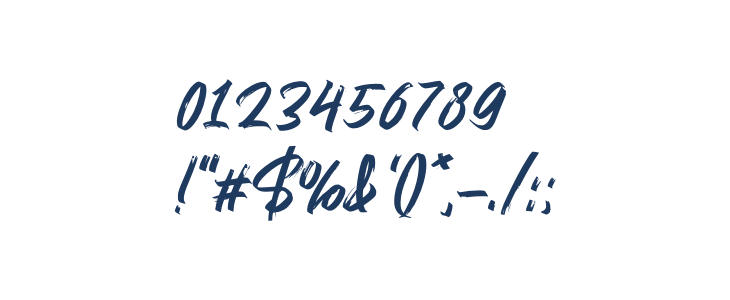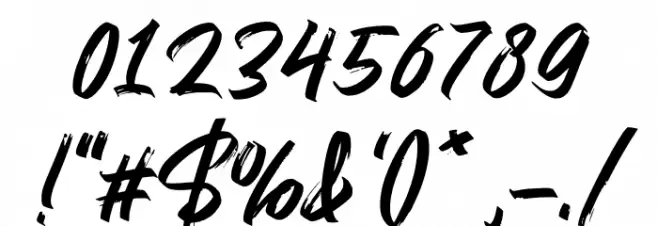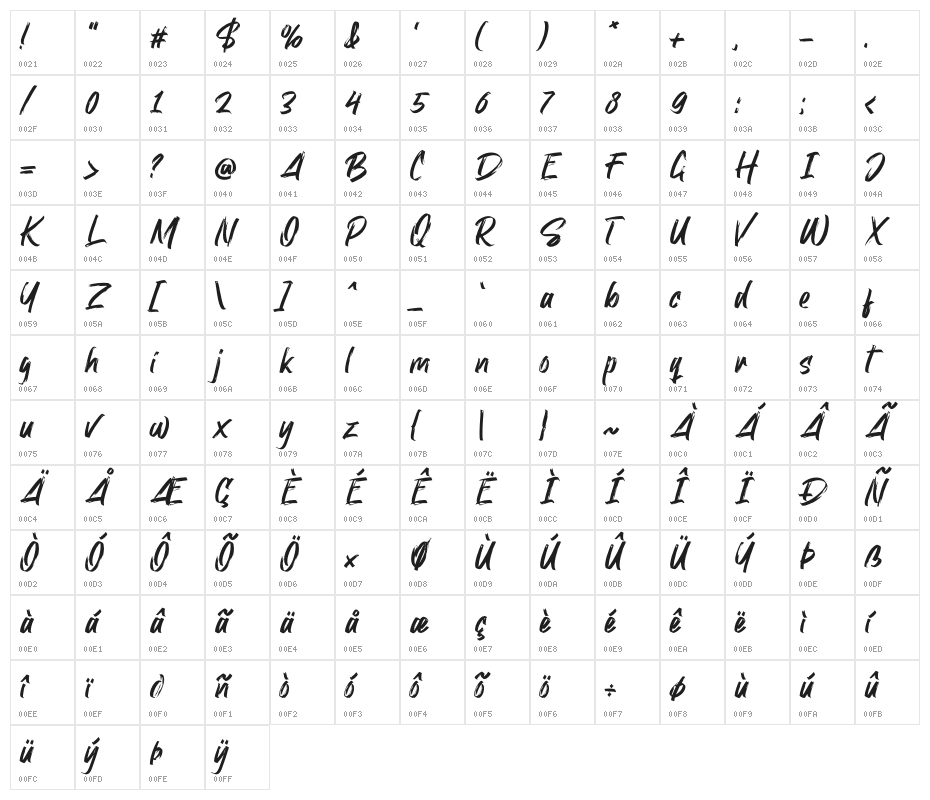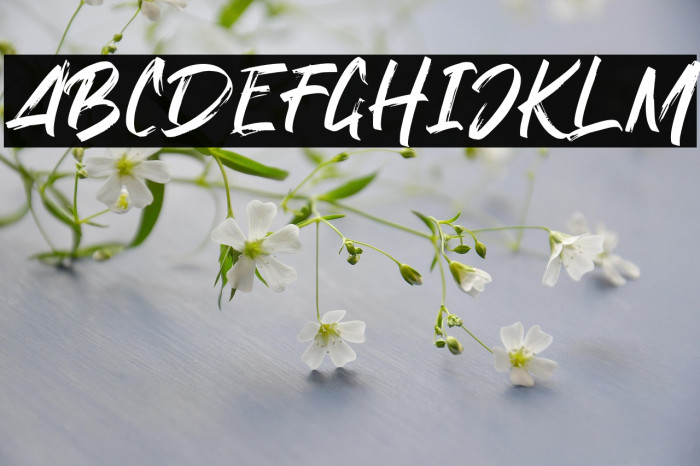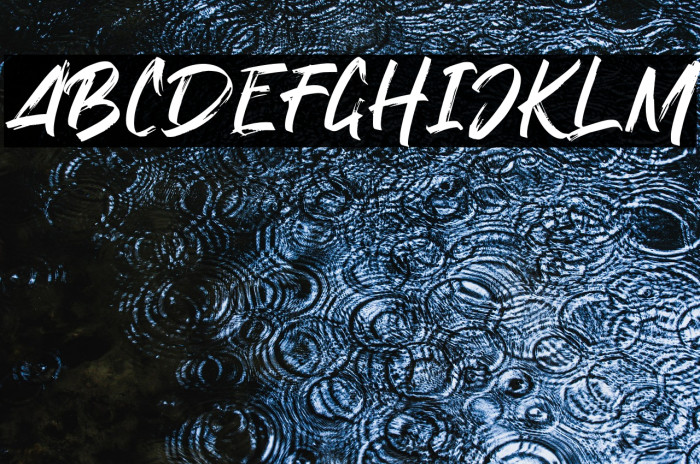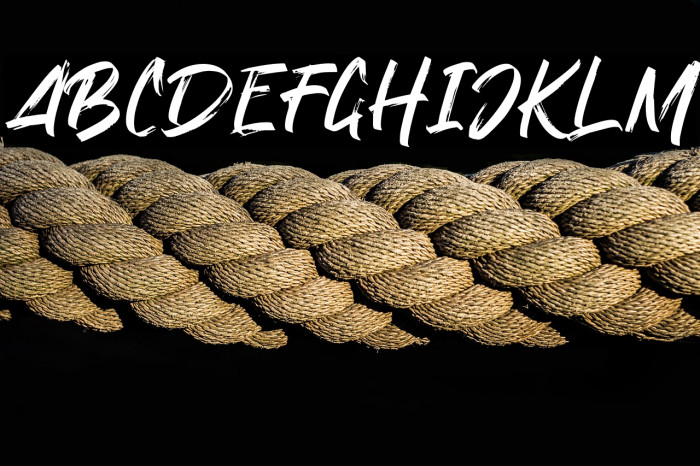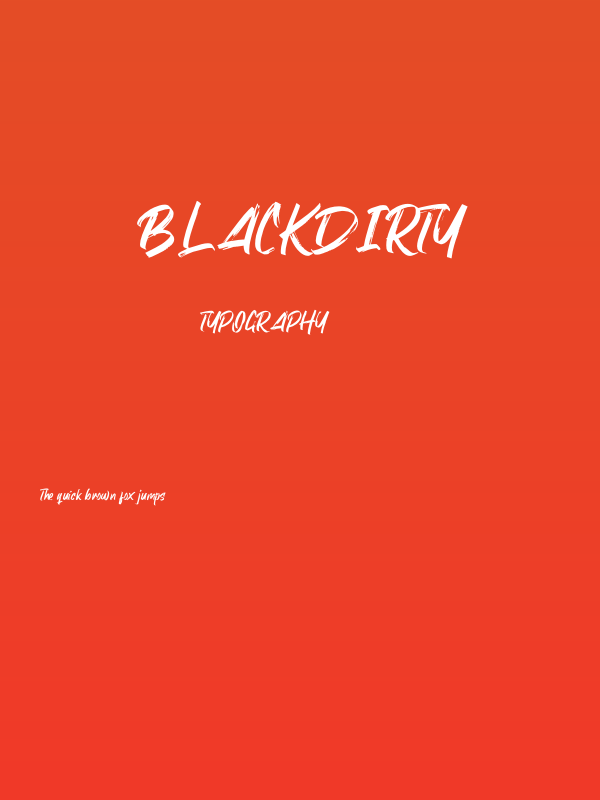
BlackDirty Font
BlackDirty Description
This font features a bold and expressive brush style, characterized by its dynamic and energetic strokes. The letters have a hand-painted appearance, with varying thickness that adds a sense of movement and vitality. The uppercase and lowercase letters maintain a consistent style, with some letters having dramatic flourishes. The numbers and special characters follow the same aesthetic, making the font versatile for creative projects. Its rough edges and irregularities give it an authentic, handcrafted feel, perfect for designs that require a personal touch.
| Proposed Projects | Ideal for posters, logos, branding, and any project that requires a bold, artistic touch. |